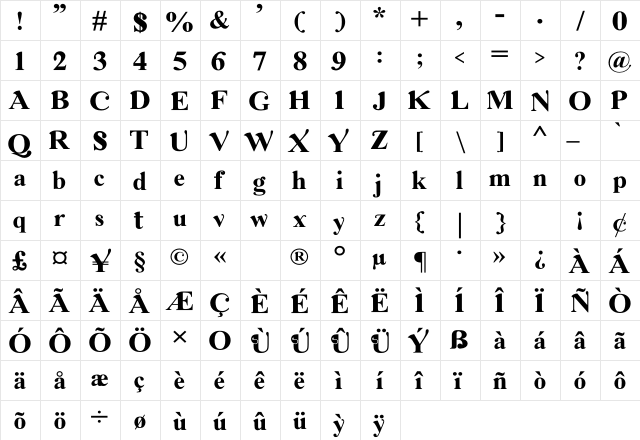
Amboqia Boriango Regular
Design Context for Amboqia Boriango Typeface
Amboqia Boriango is a composed and adaptable typeface that performs quietly and consistently across a wide range of design contexts.